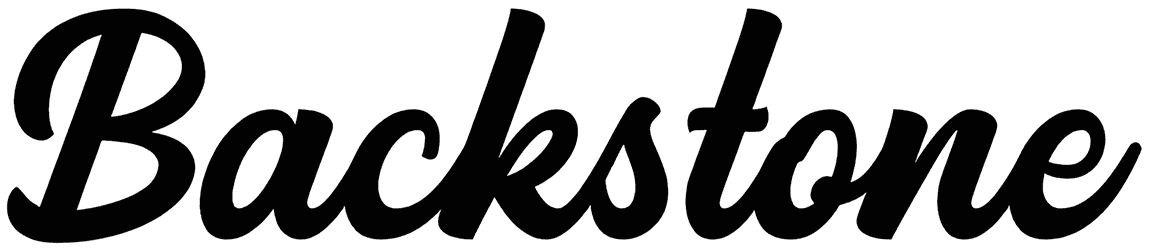
Backstone Font
Backstone is a classic script font that lets you add your own personalized touch to any kind of professional graphic project ranging from headlines, business cards, and flyers, to social media posts. Due to its elongated…
Backstone is a classic script font that lets you add your own personalized touch to any kind of professional graphic project ranging from headlines, business cards, and flyers, to social media posts. Due to its elongated and angular style, it ultimately leads to a vibe of elegance, delicacy, and precision.